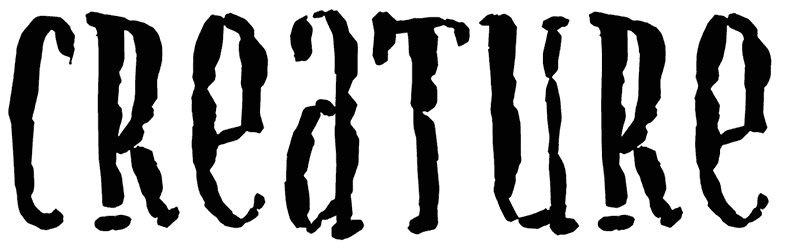
Creature Font
Creature is a representative of the old serious fonts that were used in controversial newspaper headlines without lowercase letters, and could stop people at the newsstand for a long time.
This old press font is developed based on horror fonts and can maintain the professional look of your writing. However, if you’re looking for a creative font for your Halloween poster or invitation card design, just add a few elements to the creature background.